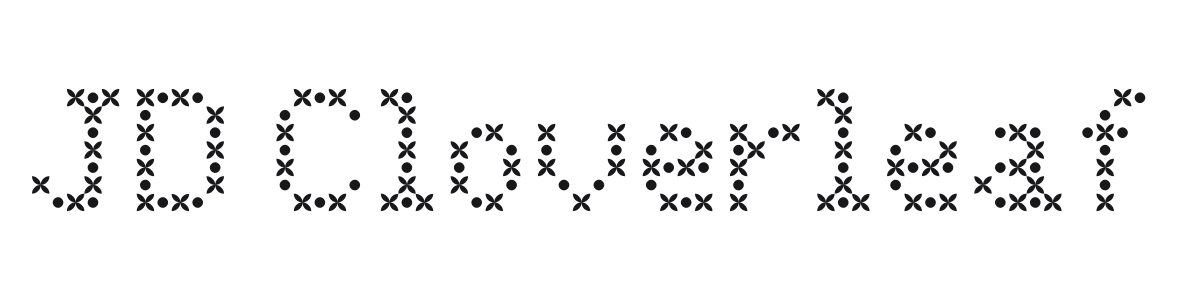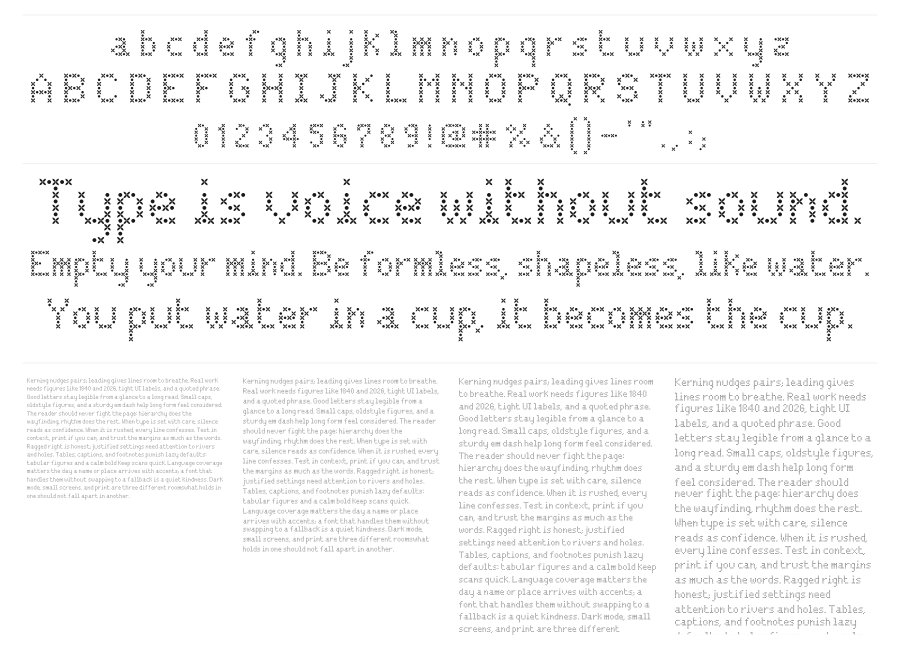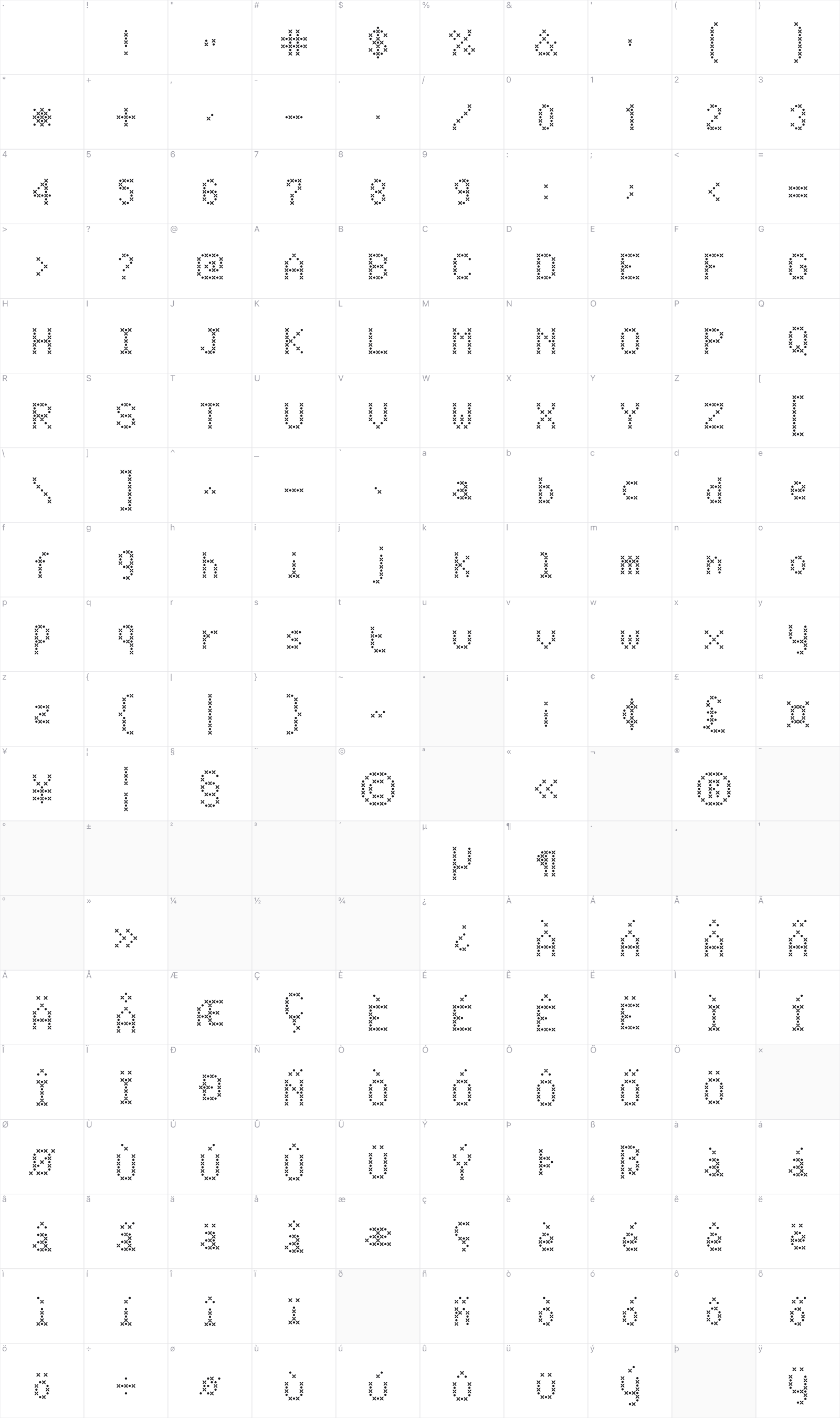
JD Cloverleaf
JD Cloverleaf is a dot-and-cross display font where every character is built from tiny circular dots and x-shaped marks on a uniform grid. The result looks like cross-stitch embroidery or a perforated ticket, with a delicate, airy texture unlike anything constructed from conventional strokes. It works best at large sizes where the individual marks read clearly as a pattern.